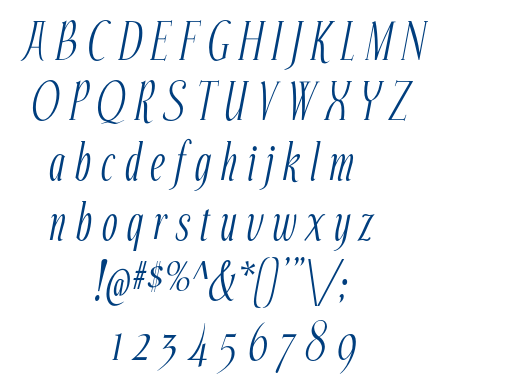
Tiny Small Medium Large Echelon font typodermic Website echelon-rg.otf echelon-it.otf Download 1409 downloads Freeware Category: Basic » Serif Echelon is a compact titling font. Don’t forget to read the files inside the zip for details. Updated in 2012. Character Map specimen sheet